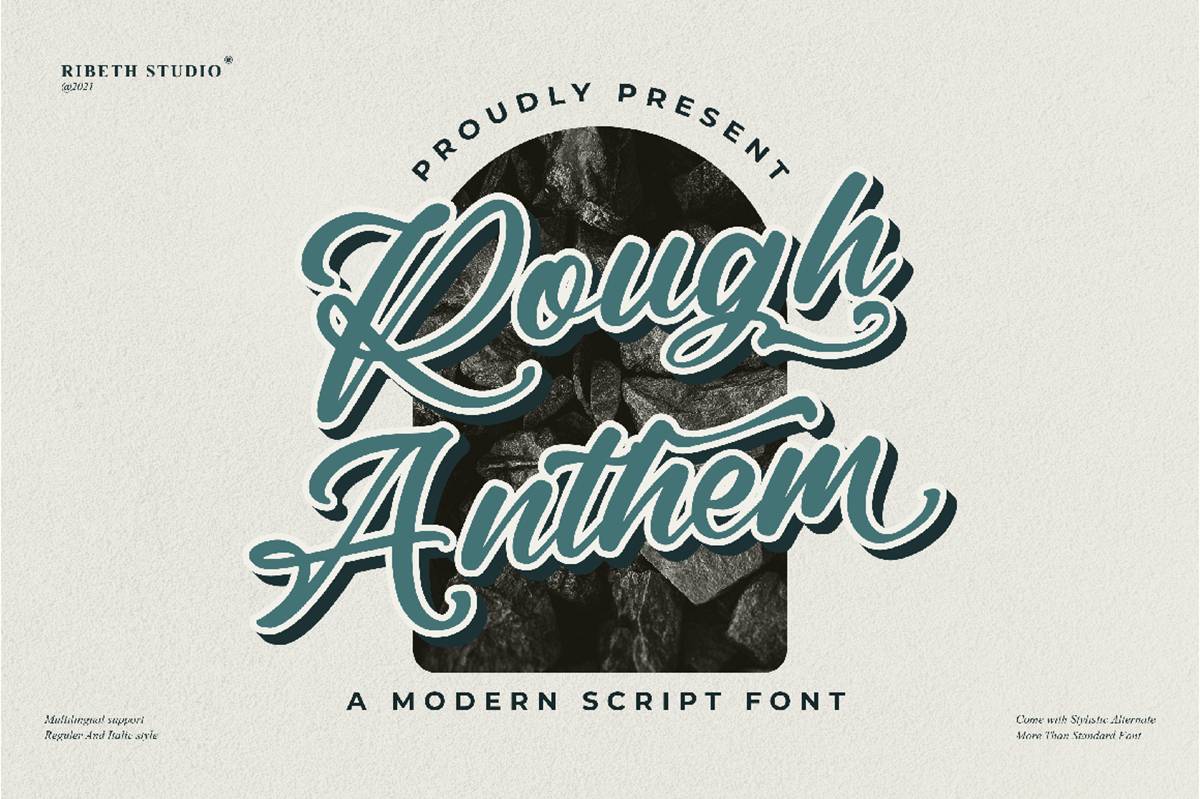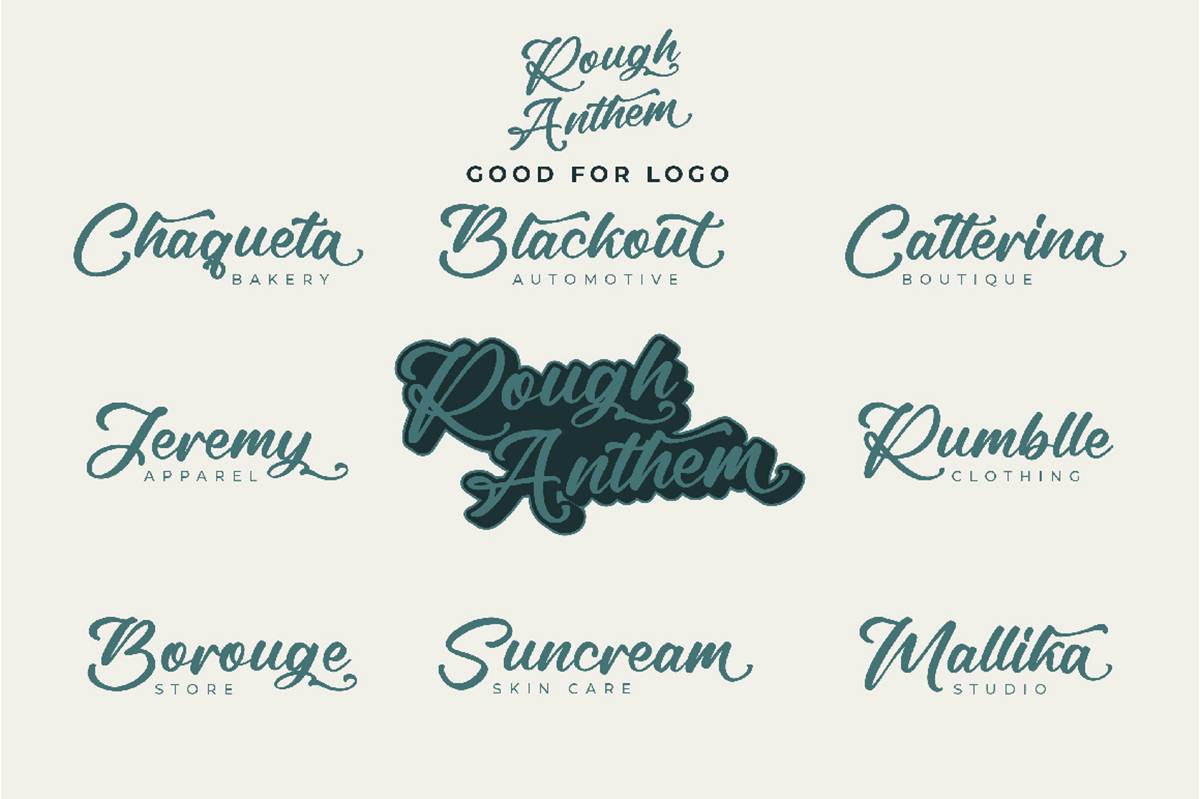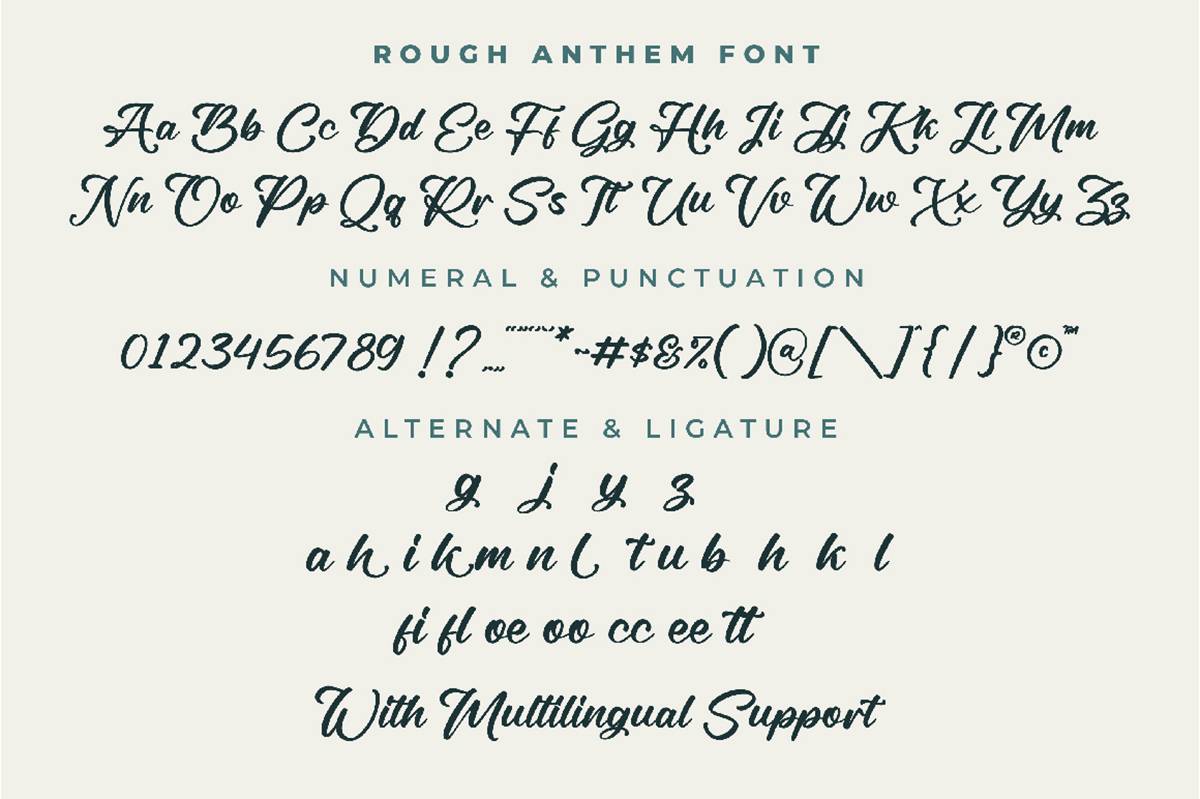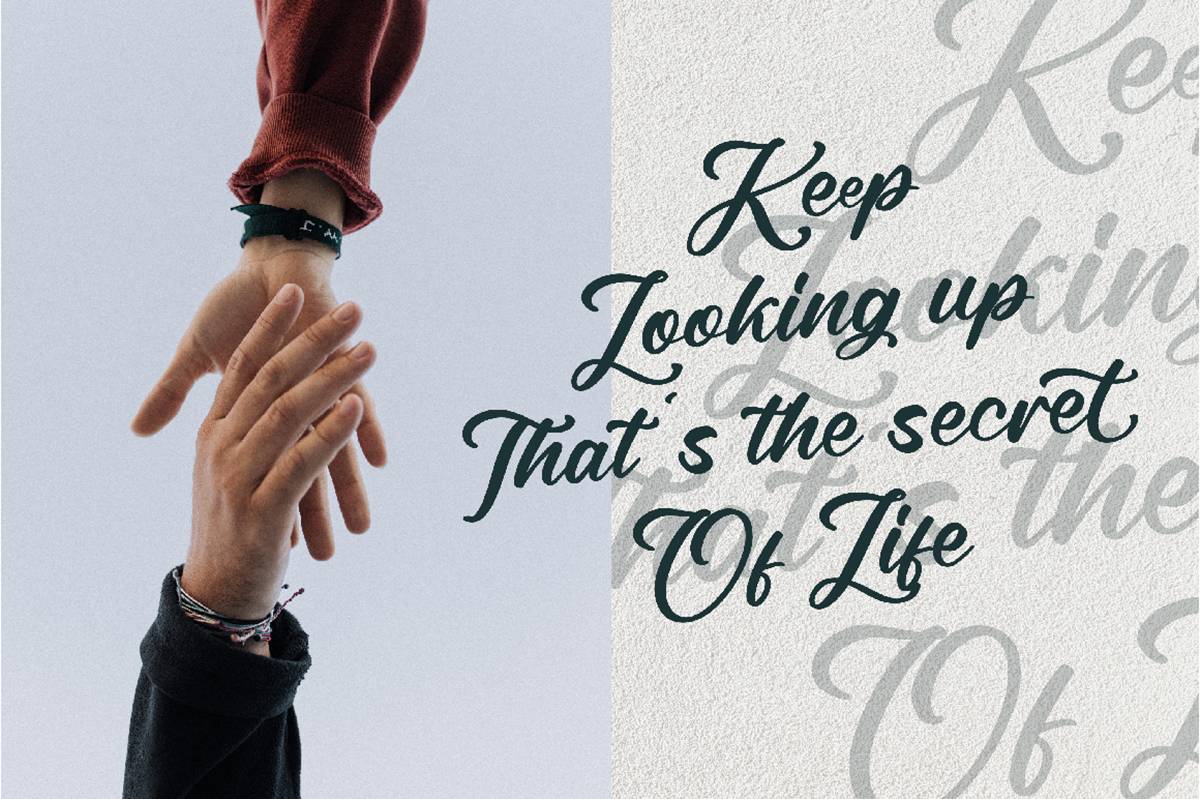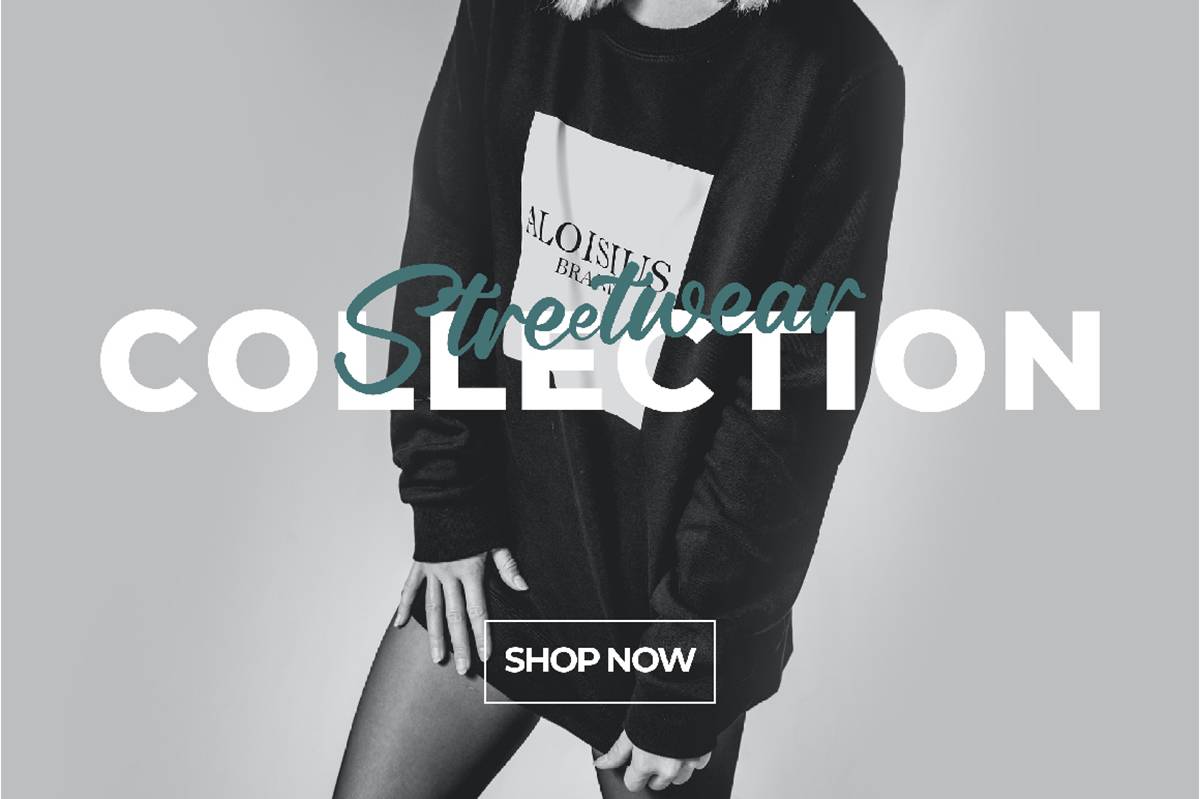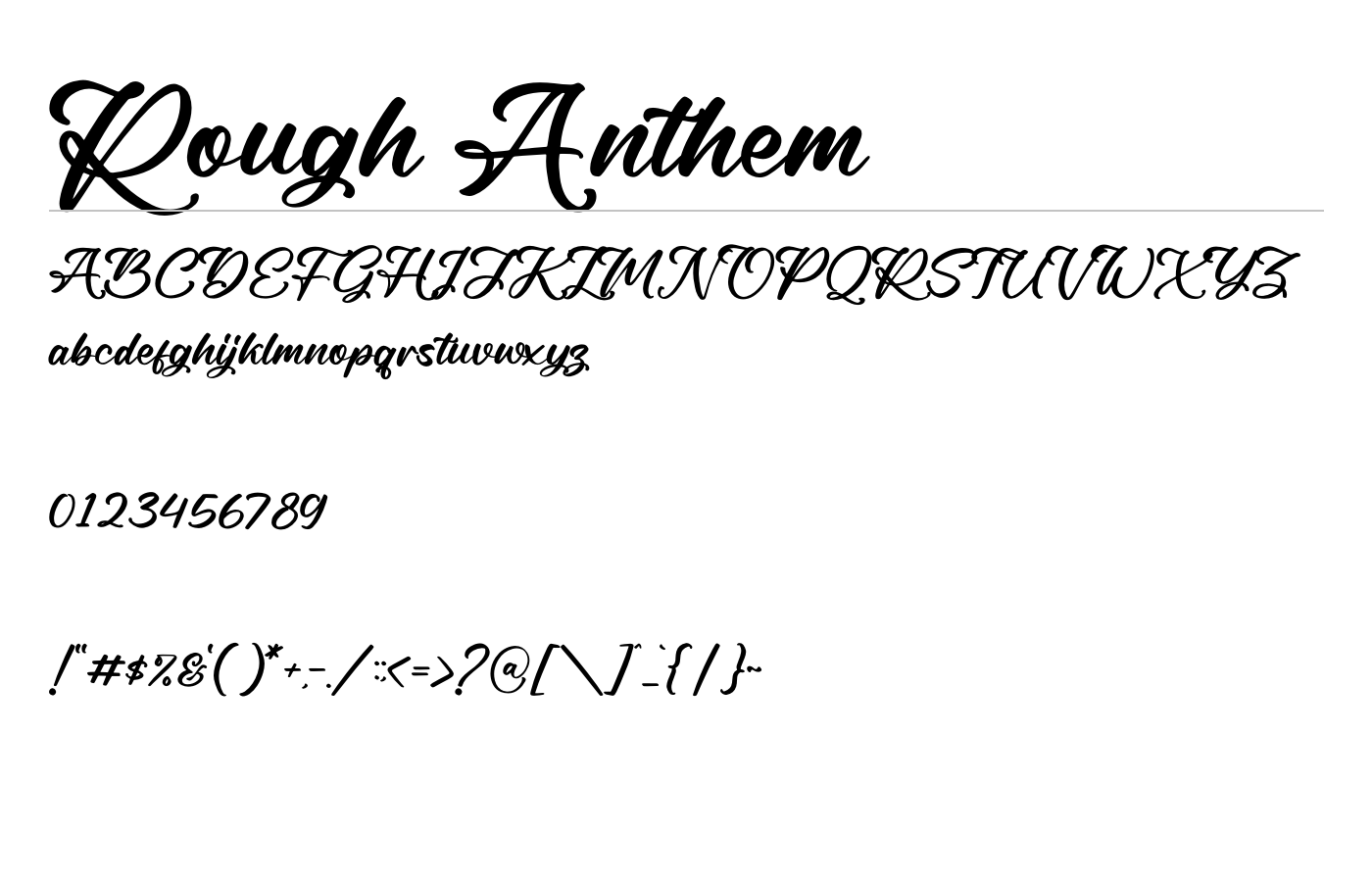
Rough Anthem is a stylish script font featuring elegant, flowing letterforms with smooth curves and moderate stroke contrast, giving it a refined yet approachable feel. Its connected, calligraphic style with playful swashes makes it perfect for invitations, branding, and creative projects that seek a touch of sophistication and personality. This font works best in display settings like logos and headlines where its artistic flair can truly shine.
Rough Anthem Font
About Rough Anthem Font